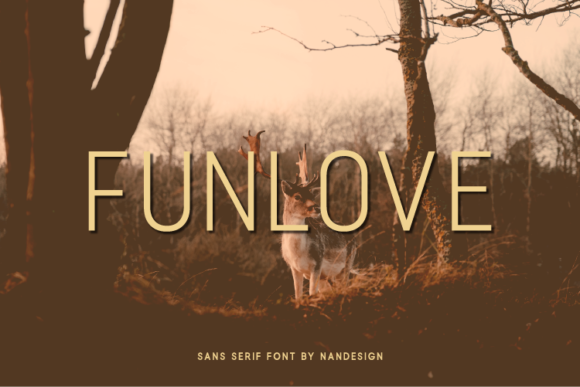
Step into the realm of typography and let your creativity soar with Funlove, a sans serif font crafted to amplify your design vision. This masterpiece, brought to life by the able hands of Nan Design, exudes an air of sophistication and elegance that will captivate your audience.
With its slender strokes and minimalistic character, Funlove is the perfect choice for those seeking a font that speaks volumes without uttering a single word. Its clean lines and open counters create a sense of airiness and clarity, allowing your content to take center stage.
Whether you're a seasoned designer or just starting your typographic journey, Funlove is your steadfast companion. Its versatility knows no bounds, lending its charm to a myriad of creative projects. From captivating headlines that demand attention to stunning logos that leave a lasting impression, Funlove effortlessly elevates your designs.
Unleash your imagination and explore the endless possibilities that Funlove presents. Create eye-catching invitations that set the tone for a memorable event, or craft stunning branding materials that reflect your unique identity. The possibilities are limitless, and Funlove is your trusted guide on this creative expedition.
But Funlove is more than just a font; it's an experience. Immerse yourself in its graceful curves and sharp angles, and feel the creative energy flowing through your veins. Let Funlove be your muse, inspiring you to create designs that resonate with your audience and leave an indelible mark on their minds.